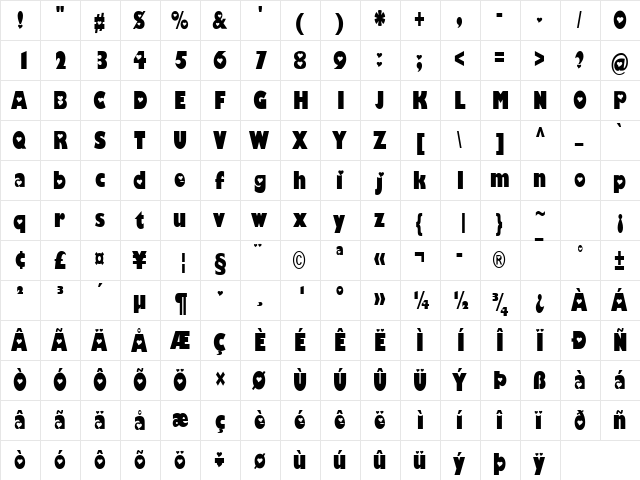
Hole-Hearted Regular
Design Context for Hole-Hearted Typeface
Hole-Hearted is a composed and adaptable typeface that performs quietly and consistently across a wide range of design contexts.